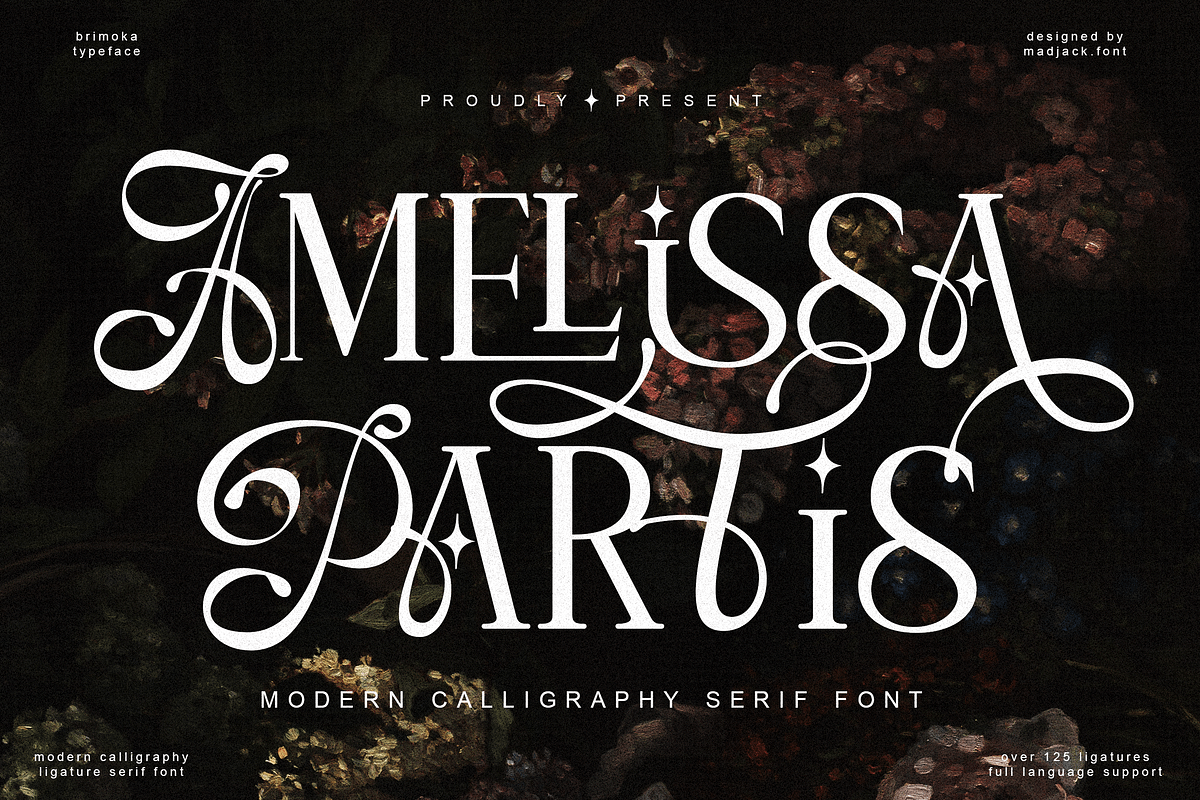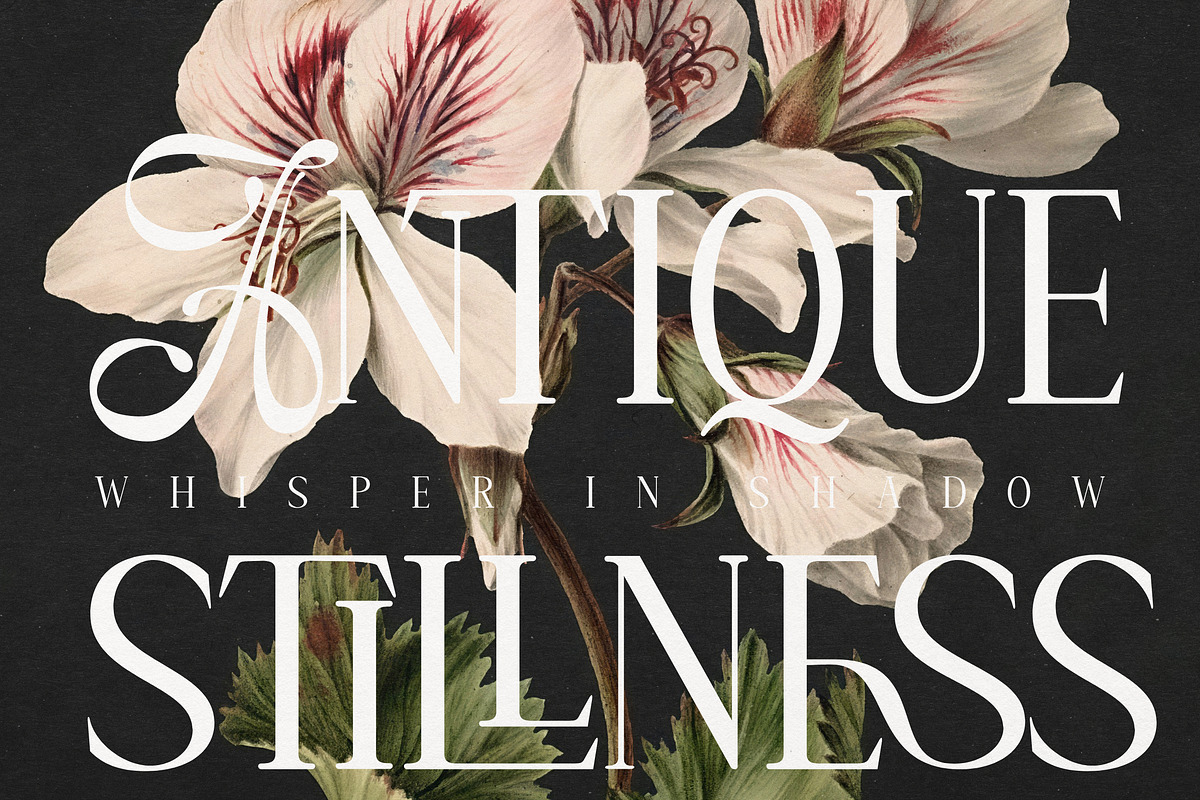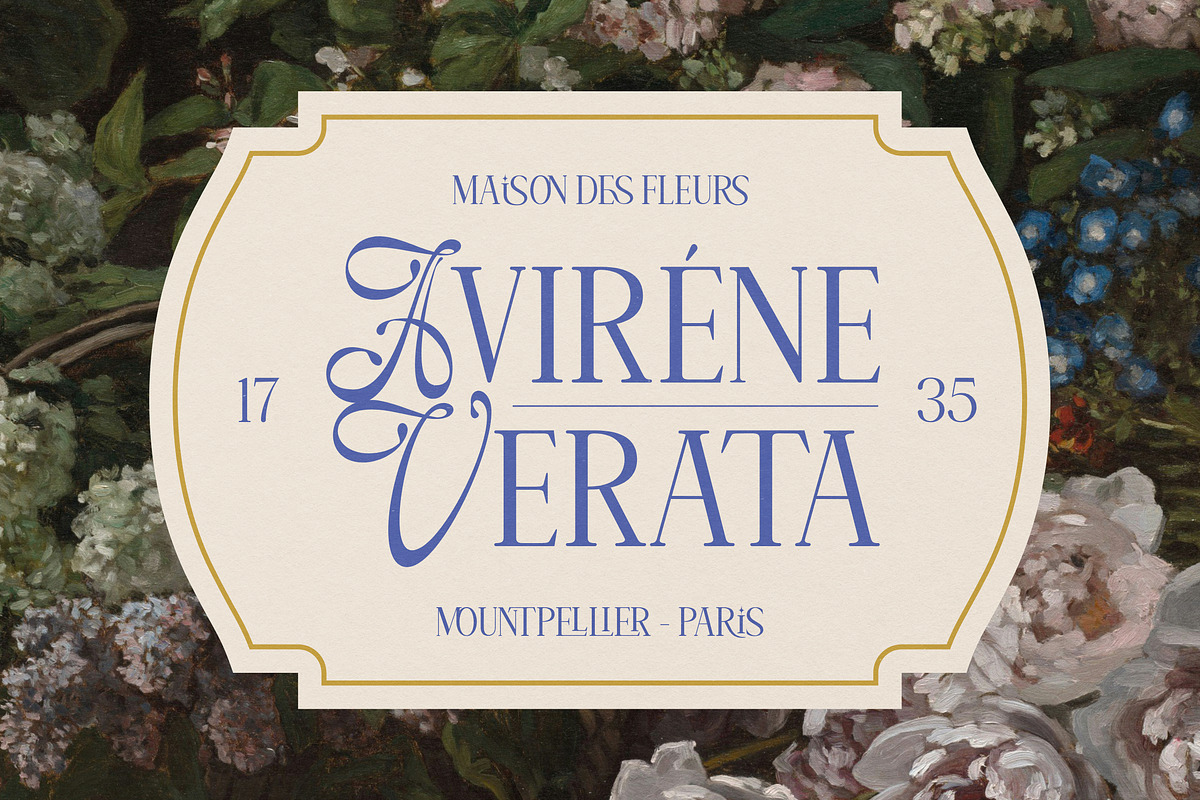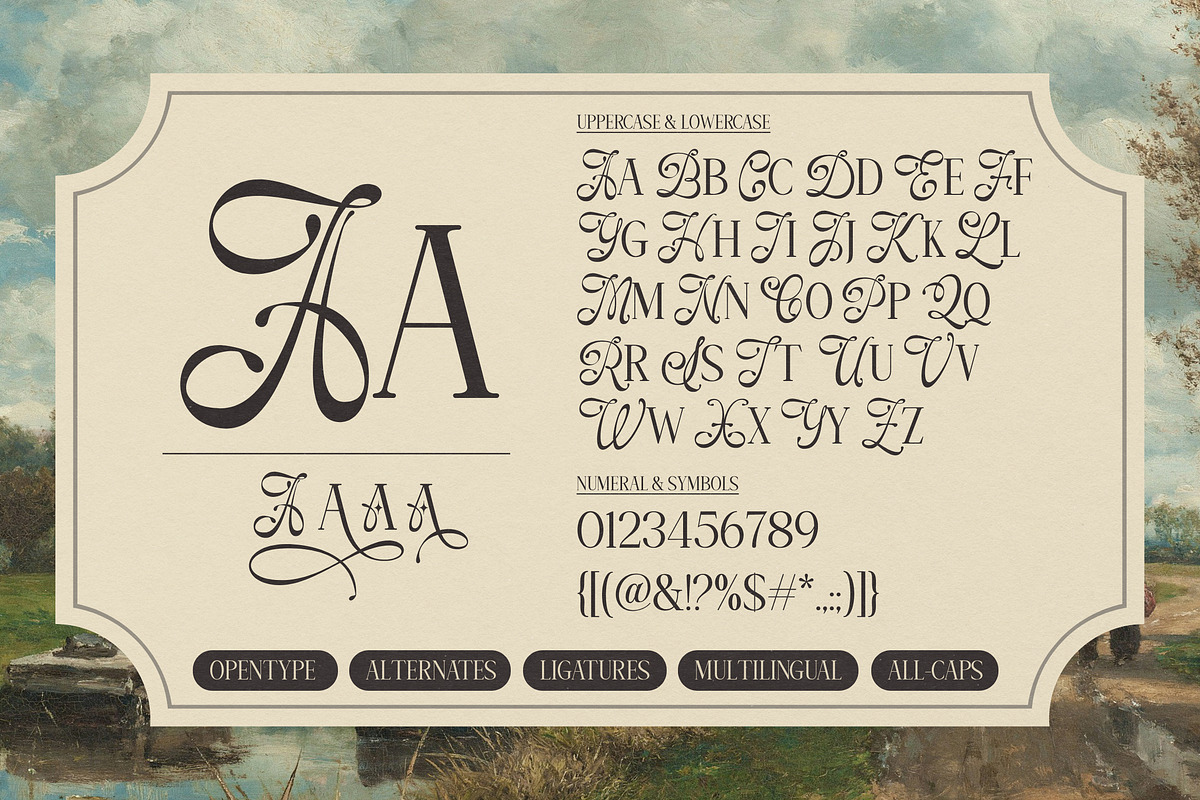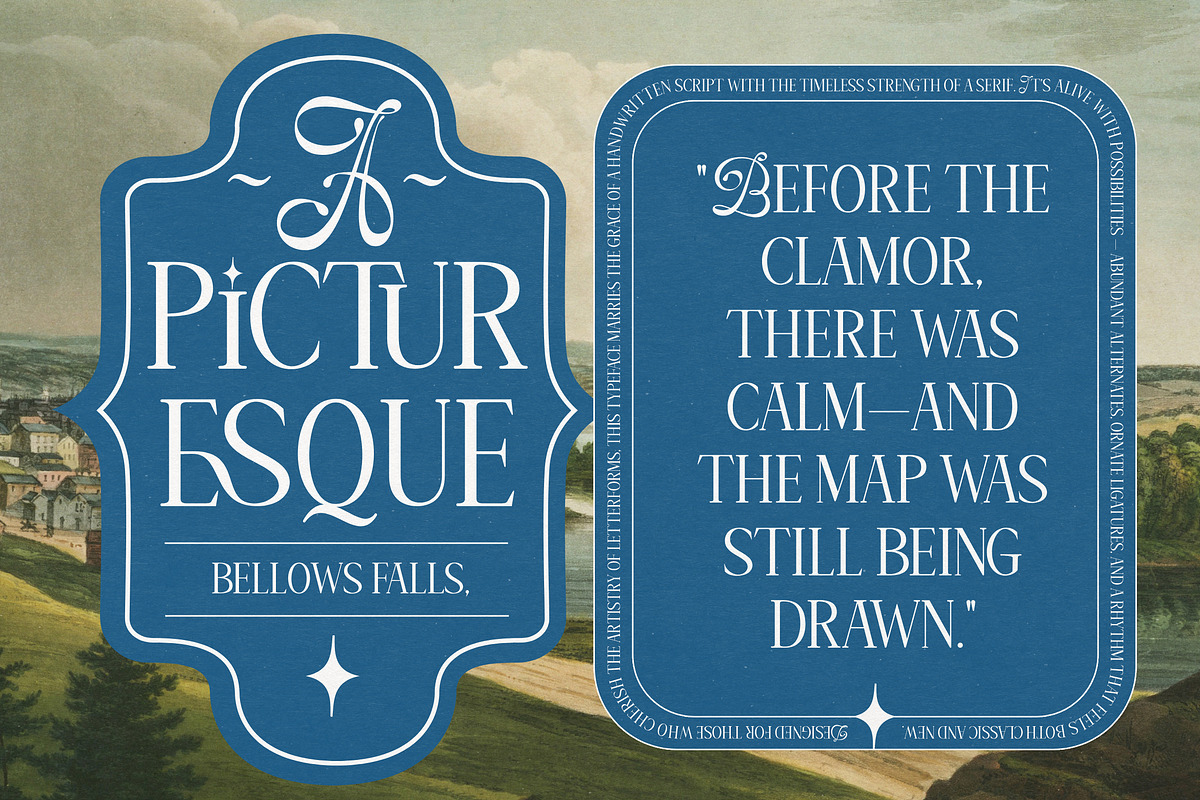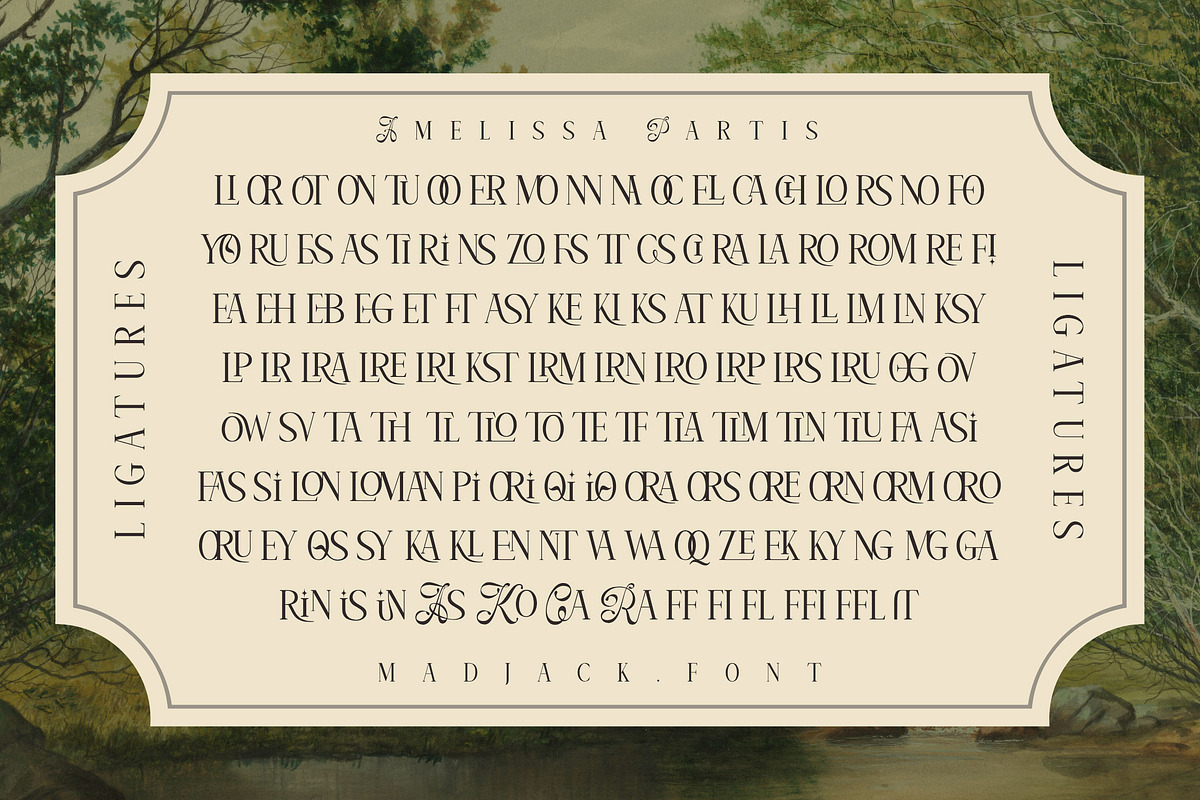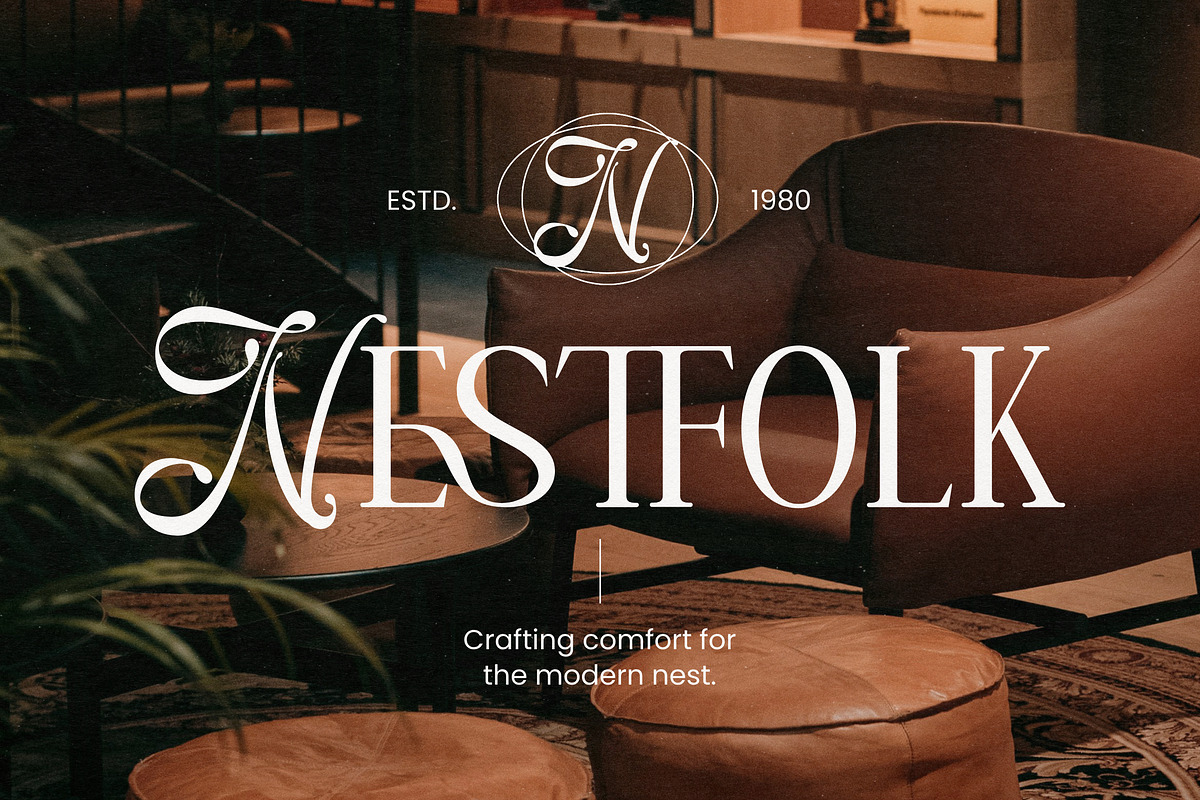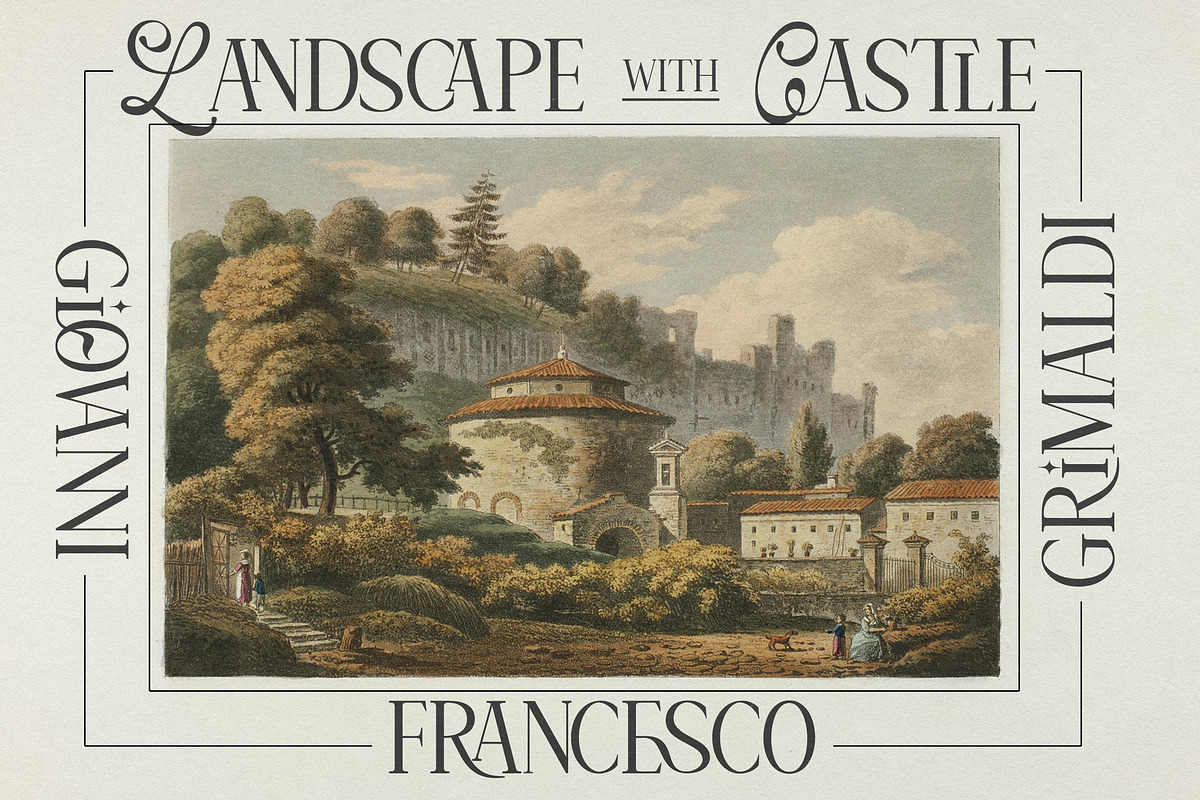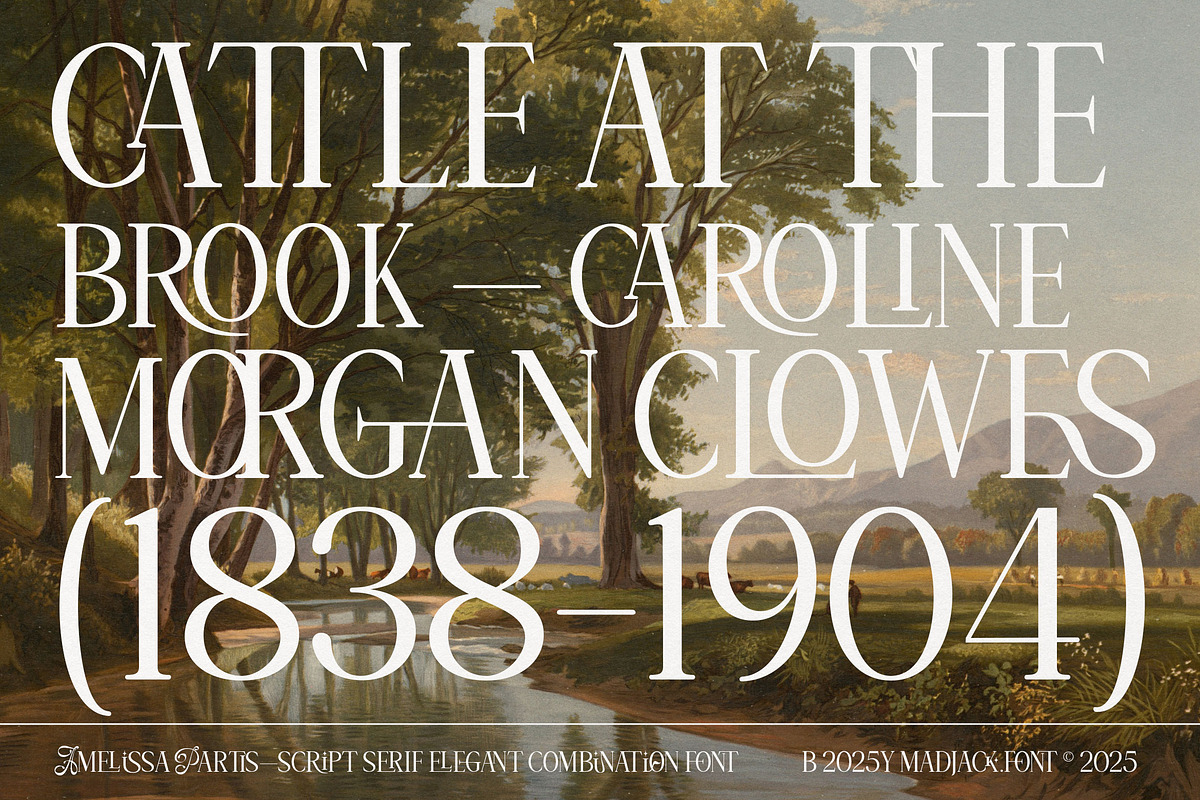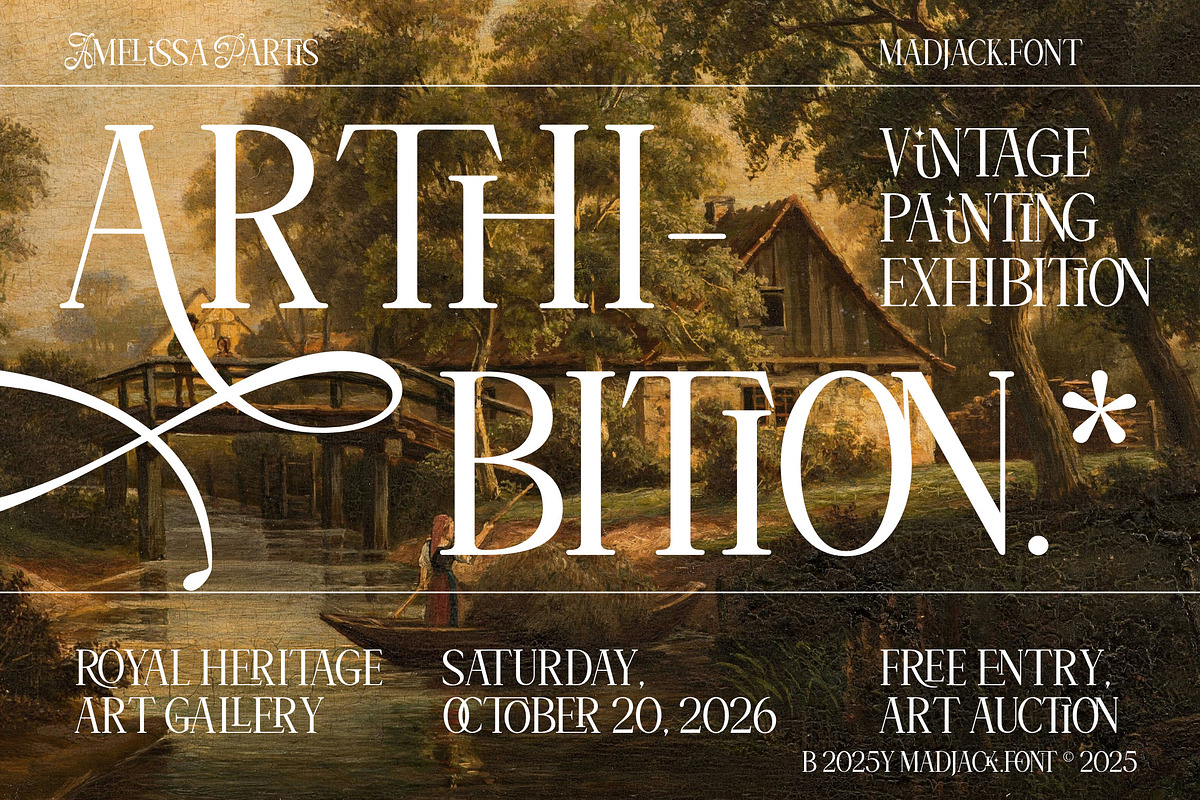
Amelissa Partis
Amelissa Partis is a stunning blend of calligraphy and serif, exuding timeless elegance with a touch of nostalgic charm. Designed to enhance any creative project, this sophisticated typeface comes in two distinct versions:
With its subtle details and graceful flow, Amelissa Partis adds depth and sophistication to branding, editorial layouts, and social media visuals. Its versatile aesthetic opens the door to endless creative possibilities, making it an essential addition to any designer's collection.